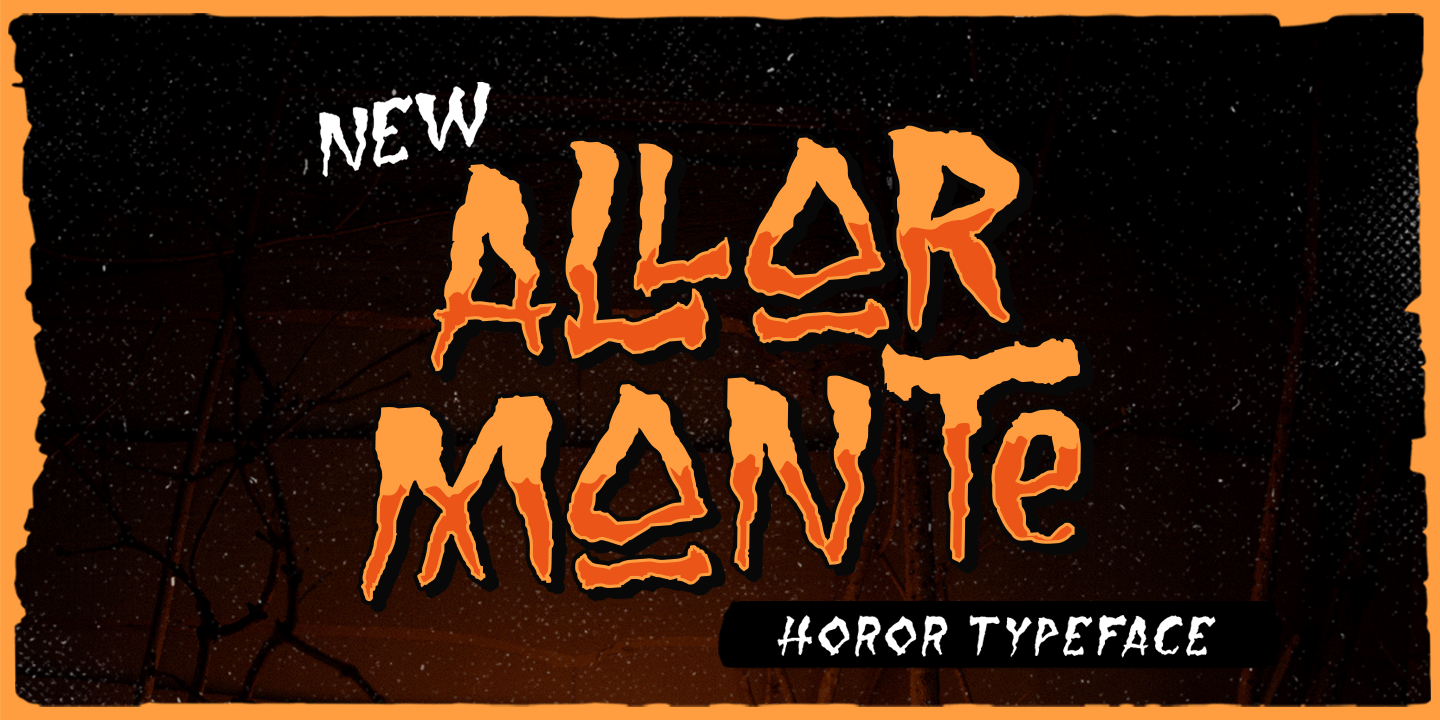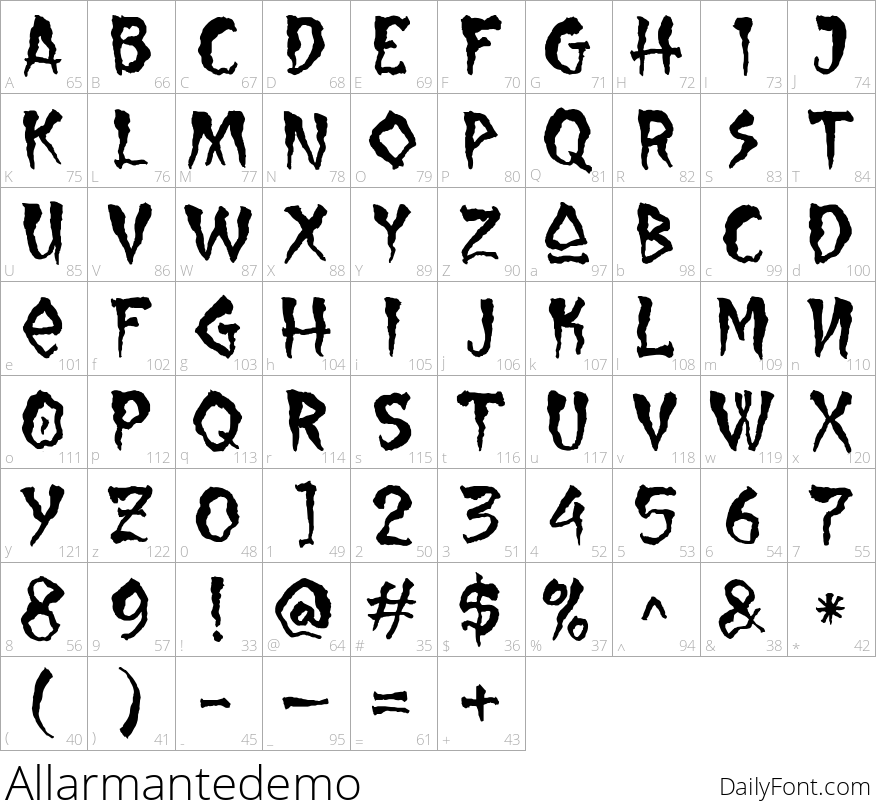
Allarmante
Are you searching for a font that exudes an air of mystery and foreboding? Look no further than a dramatic display font with a flair for the unknown. This font features bold, striking letterforms that are sure to grab attention and command respect.
With its eerie atmosphere and sinister undertones, this font is perfect for creating a sense of tension and unease in your designs. Whether you're crafting a spooky Halloween-themed project or designing a horror movie poster, this font's unique blend of gothic and mysterious elements will help you set the mood.
Its striking features include ornate details, irregular shapes, and an overall sense of darkness that is sure to captivate your audience. Use it to add depth and intrigue to your designs, and watch as they come alive with an air of mystique and menace.
This font's versatility makes it perfect for a wide range of projects, from horror-themed merchandise and event branding to mysterious literature and dark art. So why wait? Let this dramatic display font guide you into the shadows, where creativity and fear meet in perfect harmony.